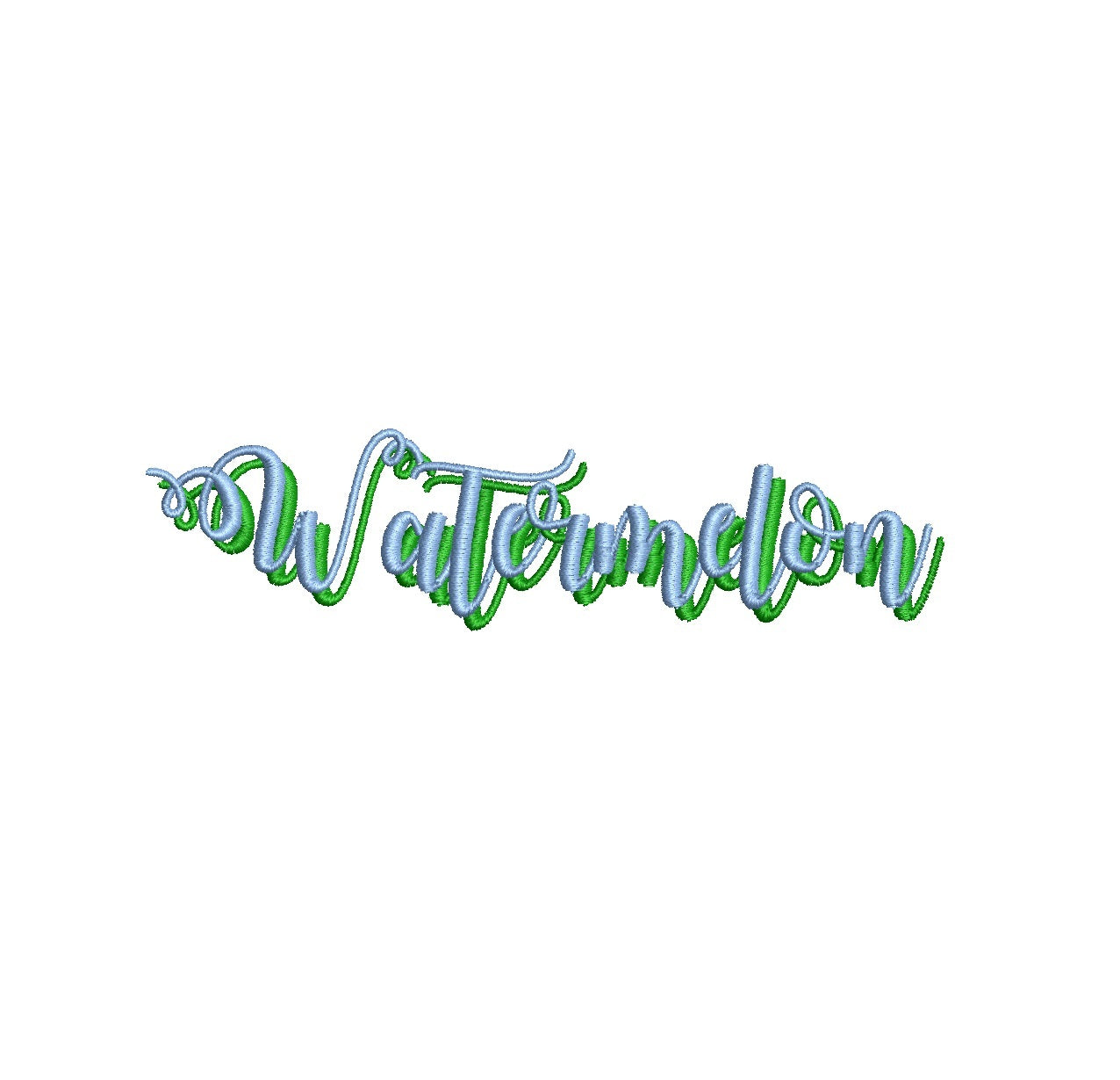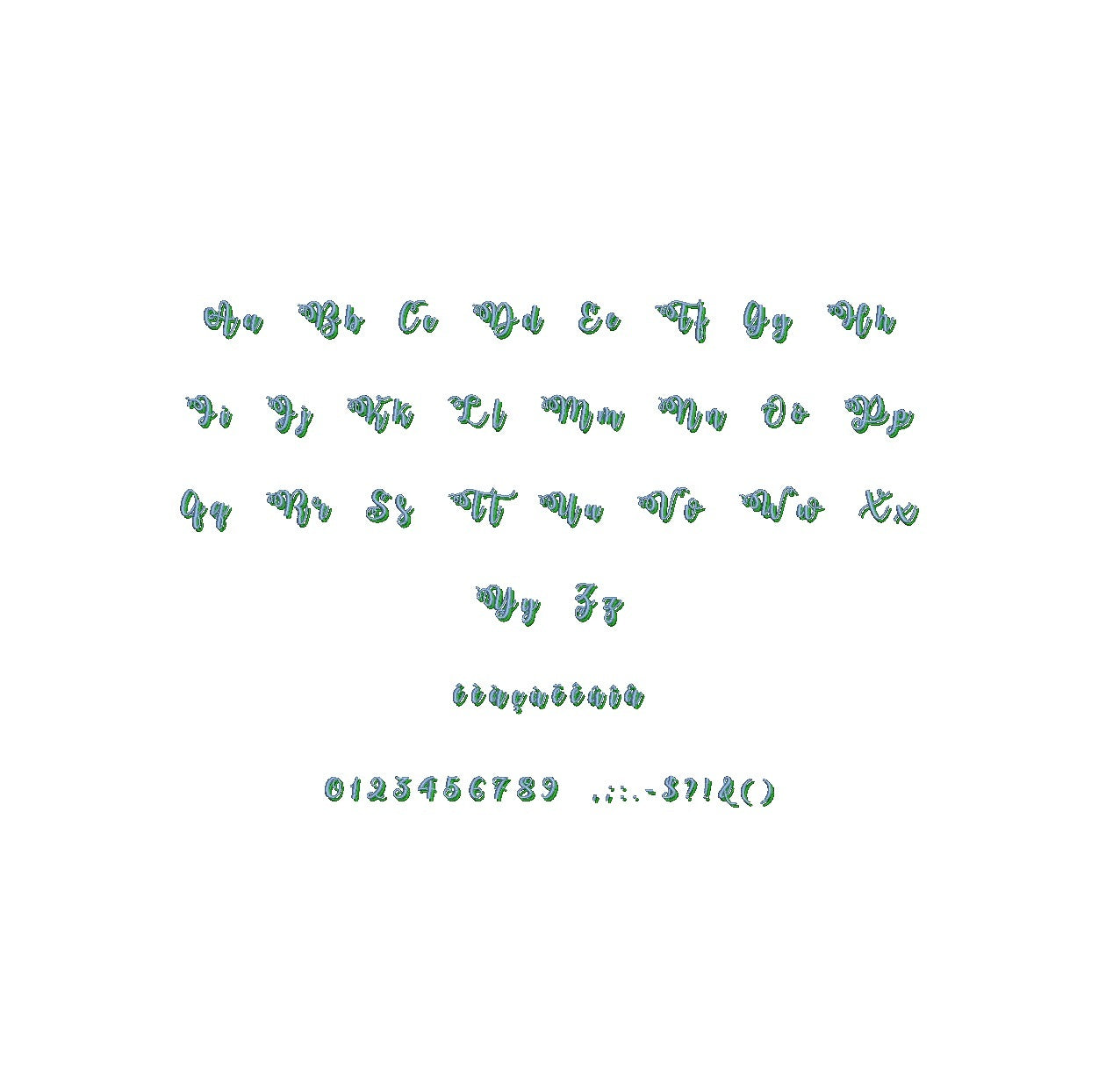
Elevate your embroidery with the refreshing Watermelon Shadow ESA font. Designed for Wilcom Studio e4.5.6 and Hatch 3 versions and newer, this font seamlessly merges vibrancy and compatibility. Craft lively designs with its playful shadow effect, adding depth and energy to your lettering. Perfect for various applications, from fun motifs to vibrant text layouts. Unleash your creativity as Watermelon Shadow ESA font revitalizes your embroidery. Elevate your designs and leave a lasting impression. Choose this font to infuse your creations with a touch of refreshing uniqueness, redefining your embroidery artistry with a burst of color.